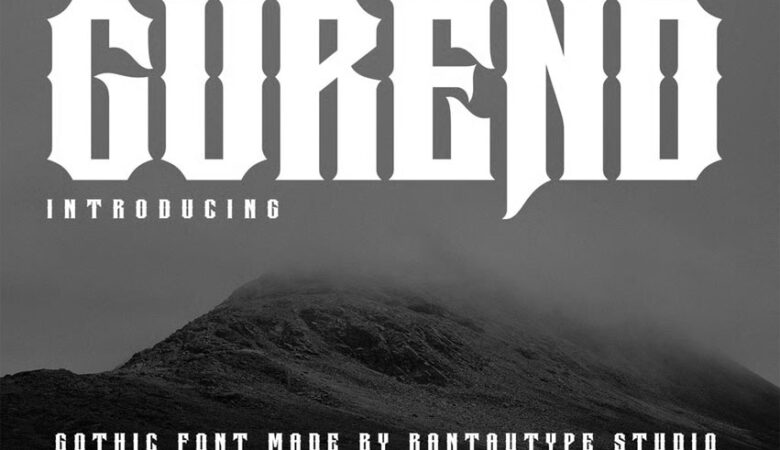
Medieval Font in Gothic style. Will fit perfectly into any thematic application. It is suitable for flyers, posters, novels, letterheads, or any design requirements that you want to be awesome.
It will certainly amaze your readers.